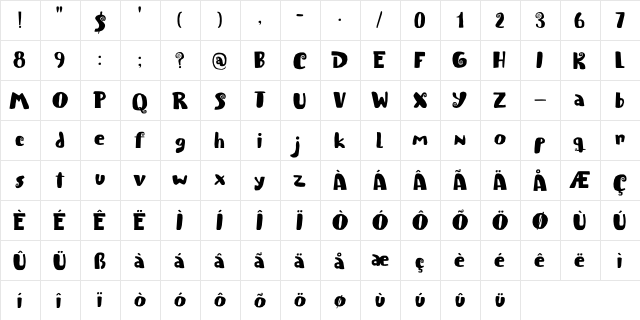
Spiraling Down DEMO Regular
Design Context for Spiraling Down DEMO Typeface
Spiraling Down DEMO is a composed and adaptable typeface that performs quietly and consistently across a wide range of design contexts.